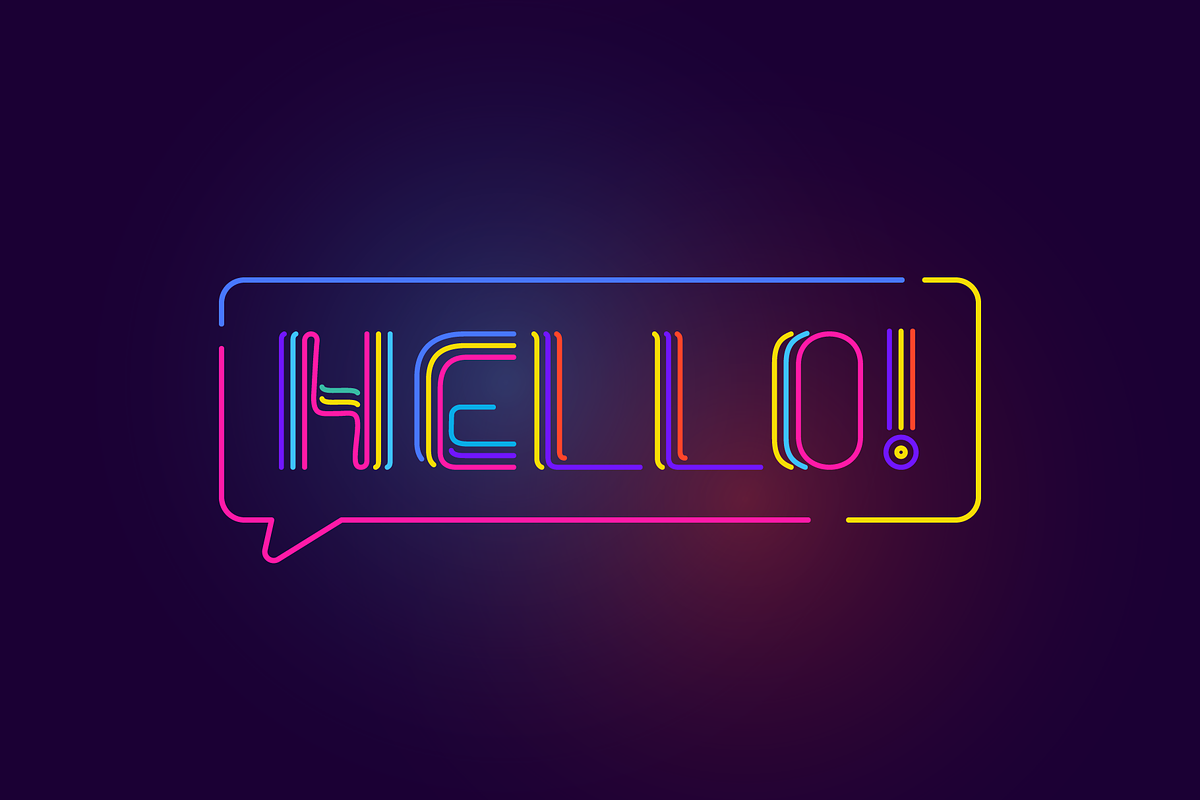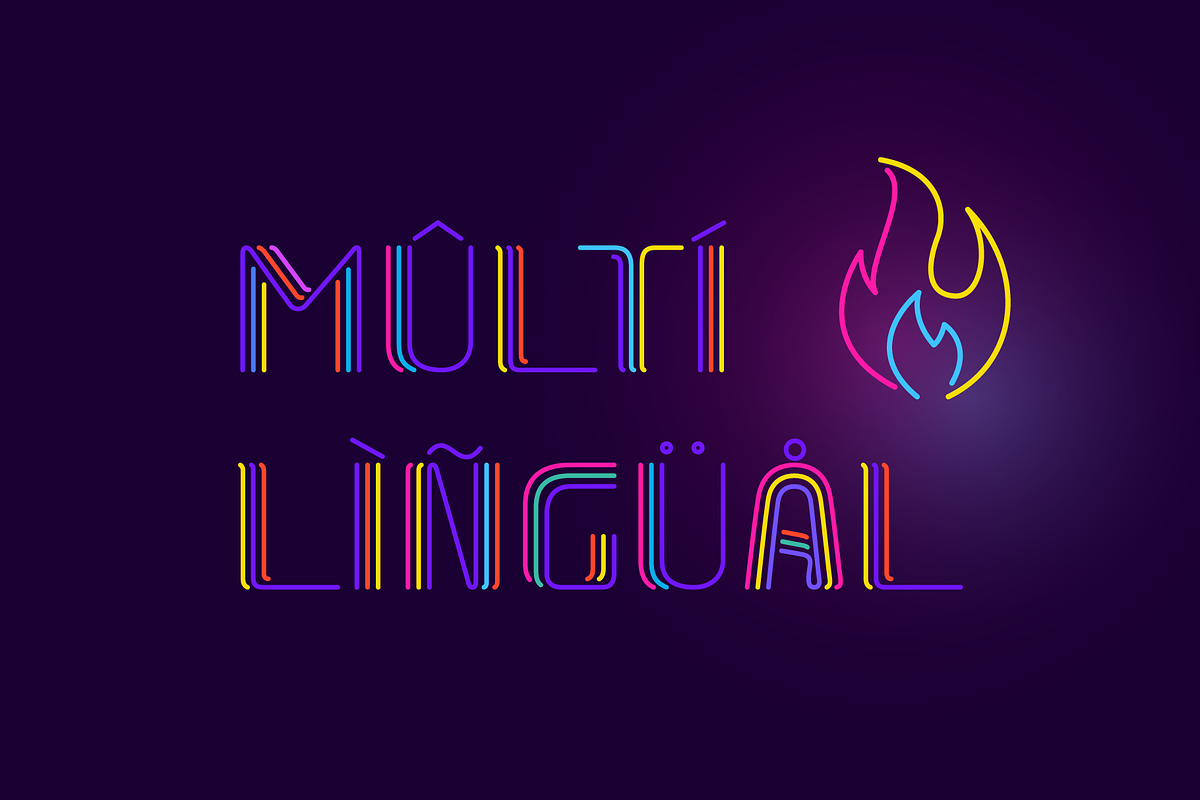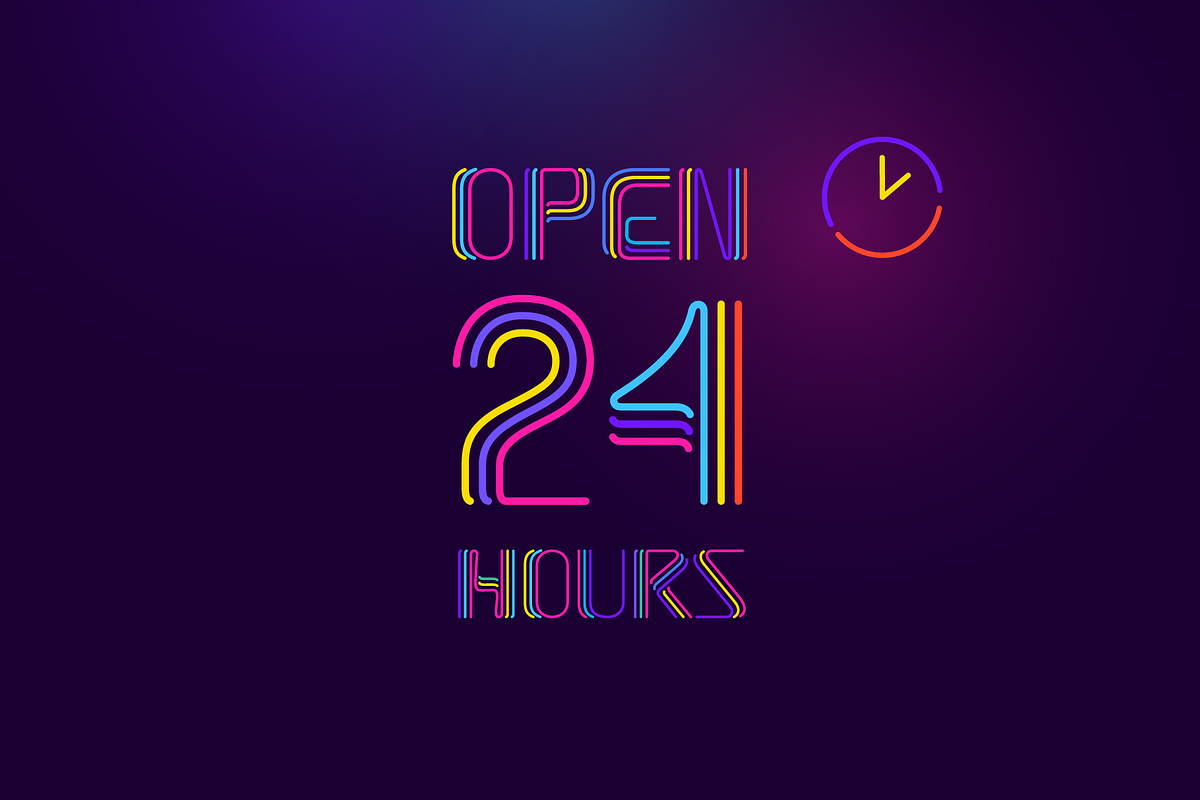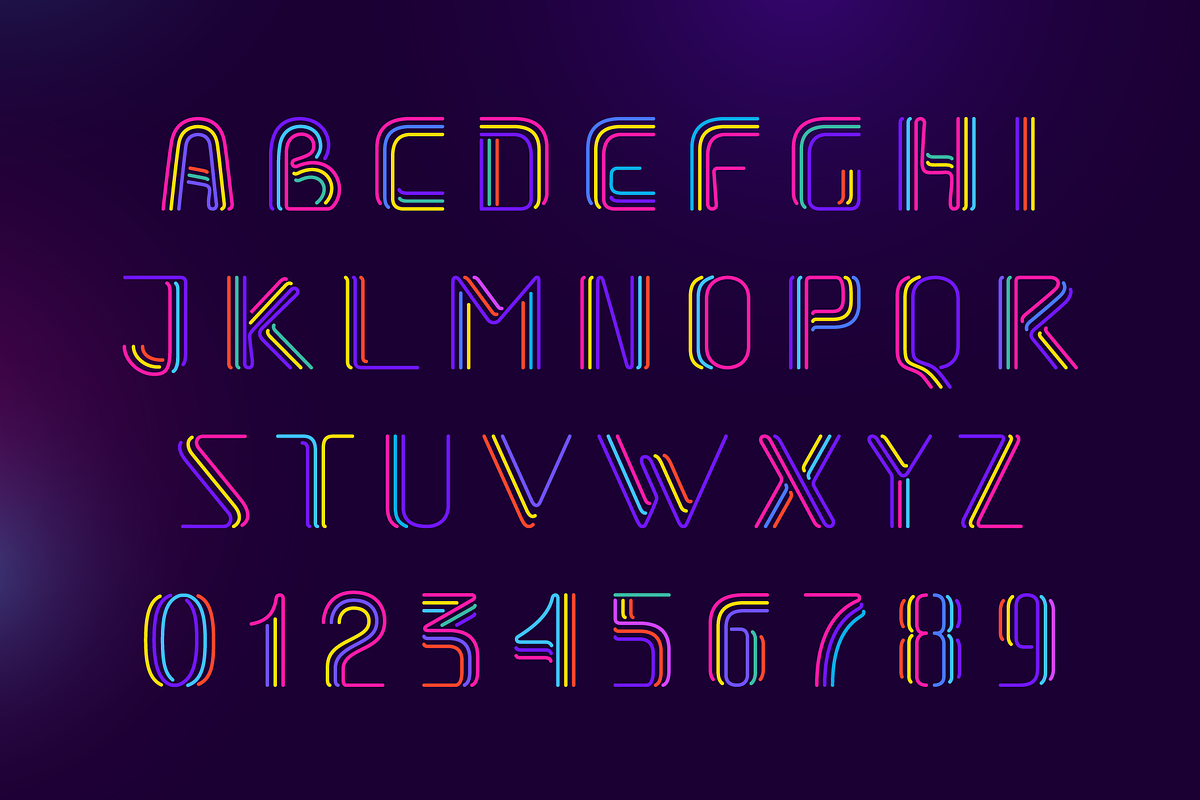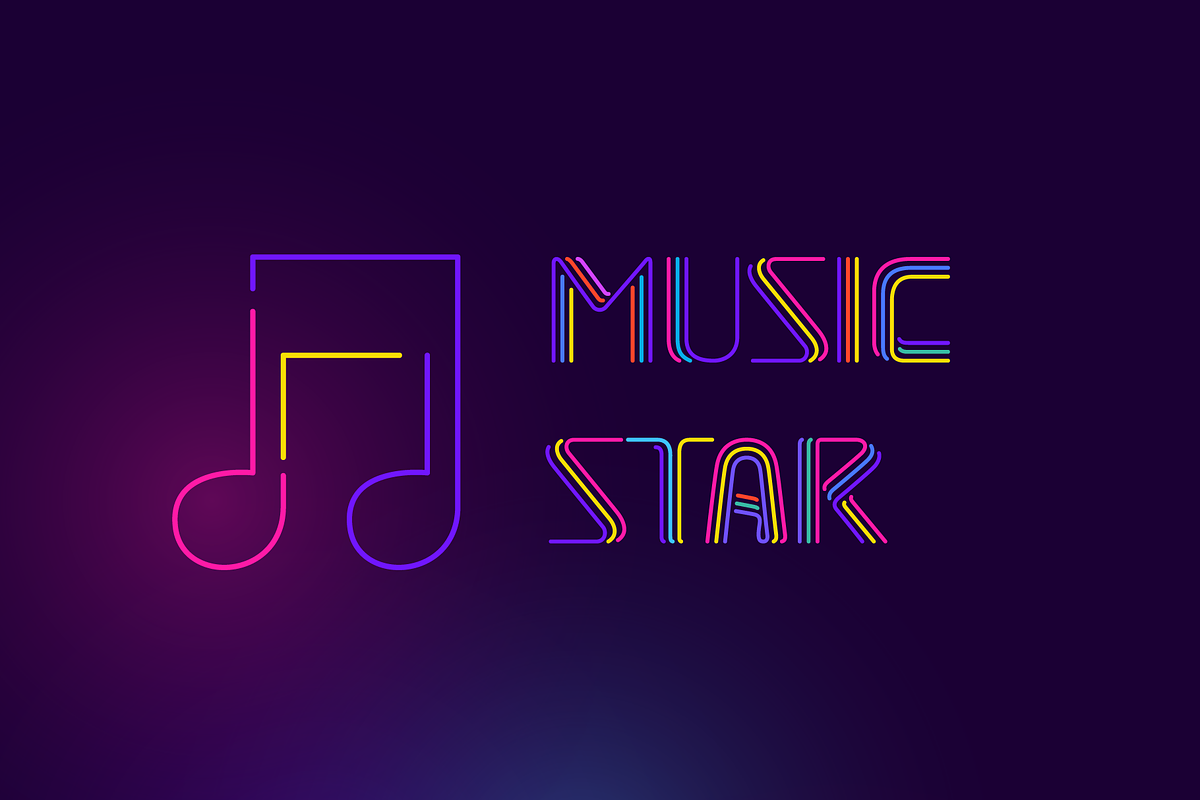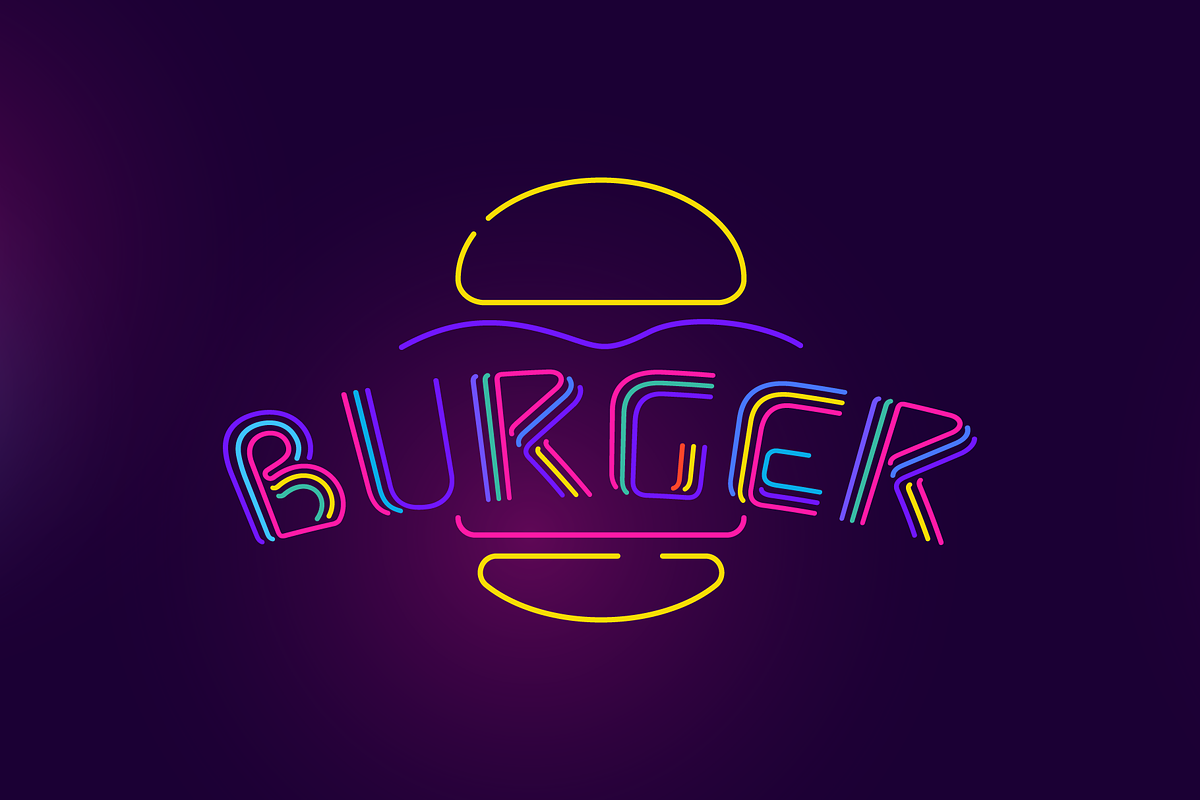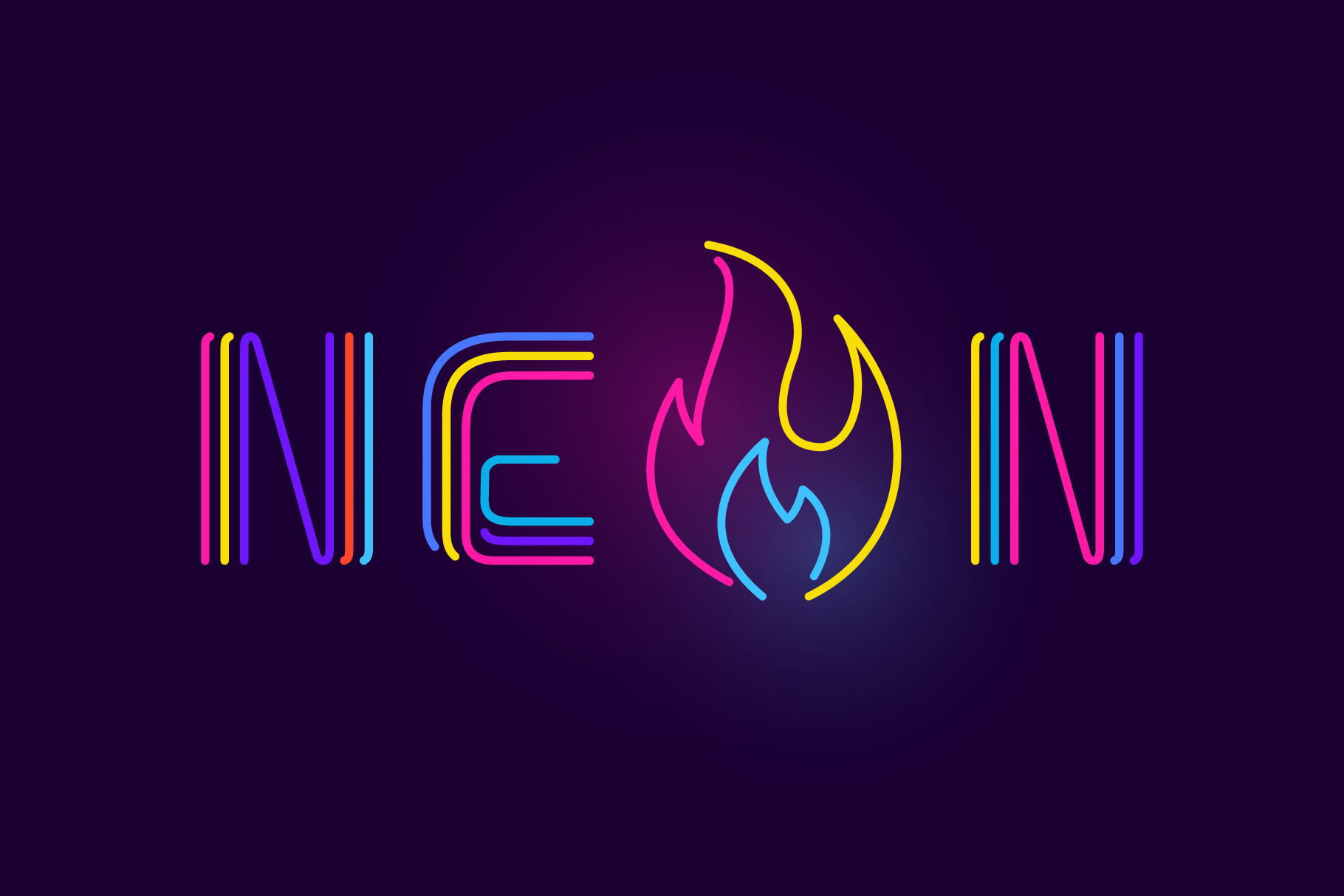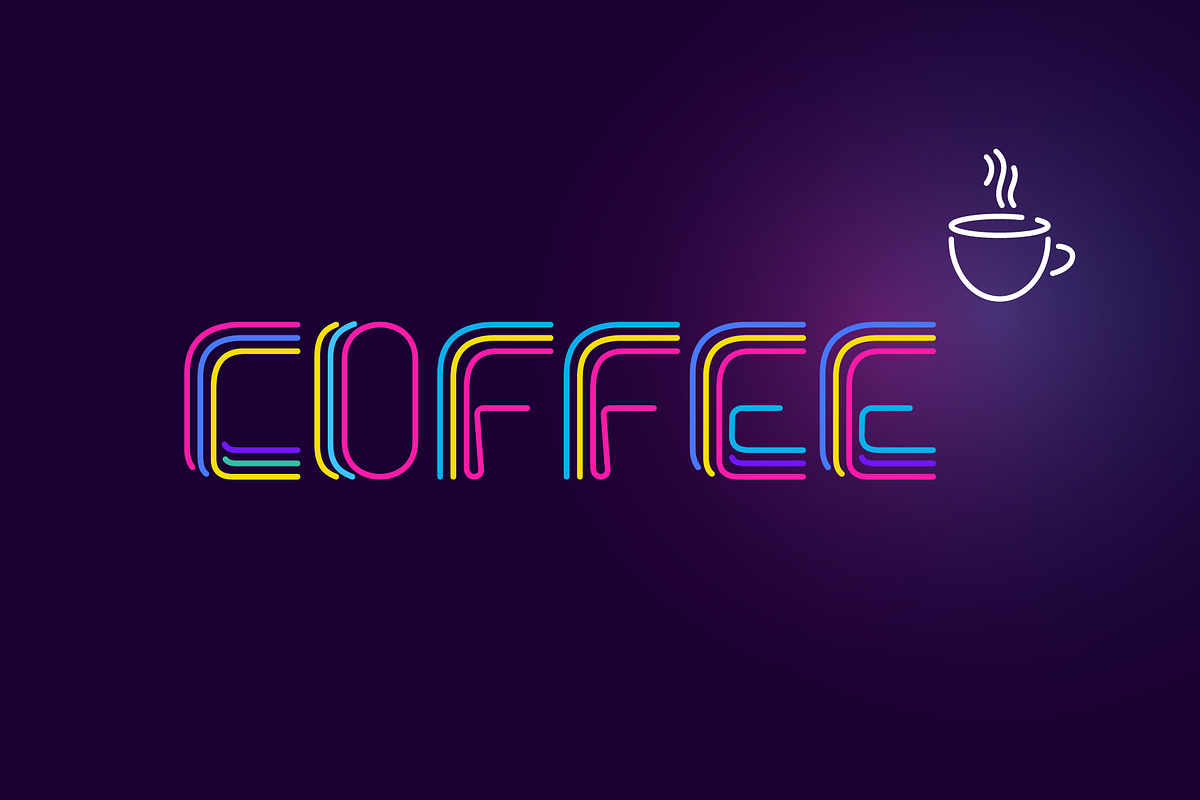
Three Neon Lines color font
Hello! Do you need colorful neon-style lettering? Please use the ready-colored font I've made.
- Colored and regular B&W styles
- Uppercase (lowercase glyphs are same)
- Numbers and symbols